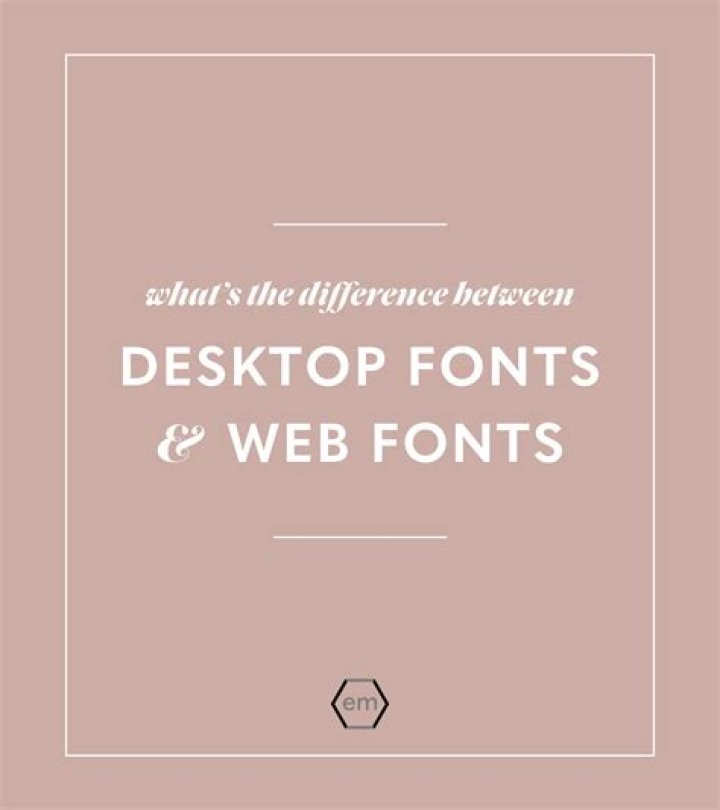
What is the difference between web fonts and desktop fonts?
A desktop font is designed to be installed on your computer for use with applications such as Microsoft Word or Adobe Photoshop. A webfont is a specially tuned font for use on websites using the CSS @font-face declaration. The Fontspring webfonts have no OpenType features and often have extraneous glyphs removed.
What fonts work best for web vs print?
The Most Easily Readable Fonts for Web and Print
- 1) Georgia. Source.
- 2) Helvetica. Source.
- 3) Open Sans. Source.
- 4) Verdana. Source.
- 5) Rooney. Source.
- 6) Karla. Source.
- 7) Roboto. Source.
- 8) Arial. Source.
What is the difference between a screen font and a printer font?
The printer fonts, which reside in printer memory, are used by the printer to print text. Screen fonts, which are stored in your computer, are used to display text on screen to represent the fonts that will be printed.
Are web fonts different?
Format Differences In the online world, different web browsers support different standards. To achieve consistency across different browsers, web fonts have to be made available in a variety of different formats: EOT, TTF, WOFF and SVG.
Should I buy desktop or web font?
In short, if you’re going to: install the fonts on a computer, you need desktop fonts. use the fonts for live, selectable text on a website, you need webfonts.
Can web fonts be used for print?
Unfortunately, not every font can be used interchangeably between web and print. Web fonts are specifically designed to be viewed on a screen. Print fonts, however, are meant to be viewed on paper. Thin fonts, in particular, look wonderful in print but don’t work on a screen.
What font is most appealing to the eye?
Design Decoded: The Top 12 Easy to Read Fonts
- Helvetica. Along with Georgia, Helvetica is considered to be one of the most easily read fonts according to The Next Web.
- PT Sans & PT Serif. Can’t decide whether serif or sans-serif is for you?
- Open Sans.
- Quicksand.
- Verdana.
- Rooney.
- Karla.
- Roboto.
Can I use a web font for print?
Can I use Google web fonts for print?
Google Fonts make it quicker and easier for everyone to use web fonts, including professional designers and developers. All of the fonts are Open Source, which mean you can use them in every way you want, privately or commercially – in print, on your computer, or in your websites.
What makes a font A web font?
Web fonts are fonts especially created for websites. They’re usually on a web server. This means web fonts are downloaded by the browser while rendering the web page, and then applied to the text. Web fonts need to include four types of files: a TrueType file, a WOFF file, an EOT file, and an SVG file.
What is the difference between desktop fonts and web fonts?
What are webweb fonts?
Web fonts were an amazing step forward towards creating a more beautifully designed web. No longer were we restrained by the handful of choices that “Web Safe” fonts provided us, we now had the ability to bring just about any typeface to the web in the knowledge that everyone would see the same thing *.
Why do we need web fonts?
All of these factors serve to improve character recognition and overall readability in the non-print environment, which can include the web, ebooks, ereaders, and mobile devices. Web fonts come in two varieties: unique designs formulated specifically for the web, and optimized versions of desktop fonts.
What is the best font to use on a website?
The original set of Web Safe fonts that you could choose from included: Arial. Helvetica. Times. Times New Roman. Palatino. Garamond.